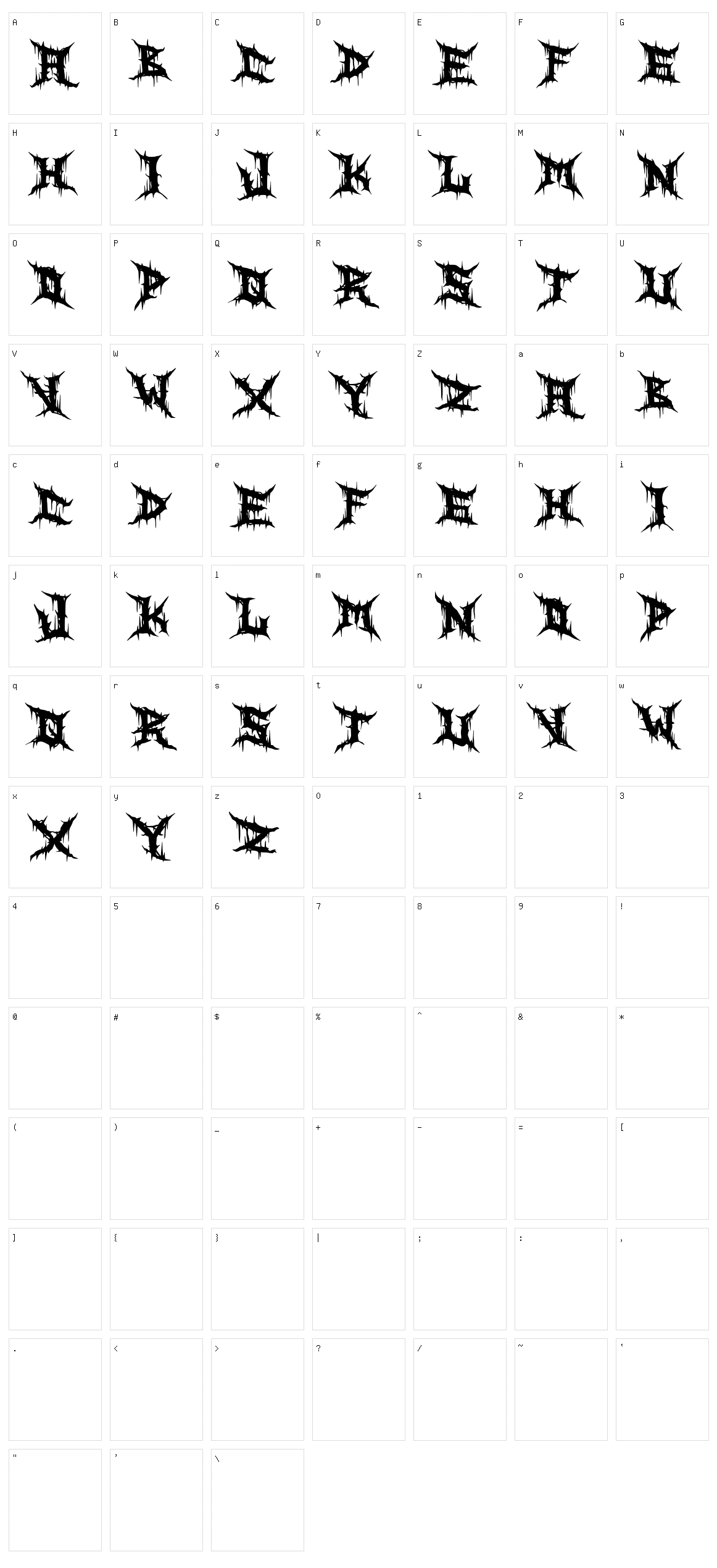
Zanaz
Description: The free font Zanaz is carefully designed by Garisman Studio, showcasing a thoughtful balance of creativity and usability and belongs to the Gothic font family. When you download the ZIP file, it contains only 318.78 KB of font files, making it lightweight and quick to download. Please review the license details below to understand permitted usage and distribution rights. If license information is not available, we recommend using this font for personal projects only or contacting the author directly for commercial usage permissions.